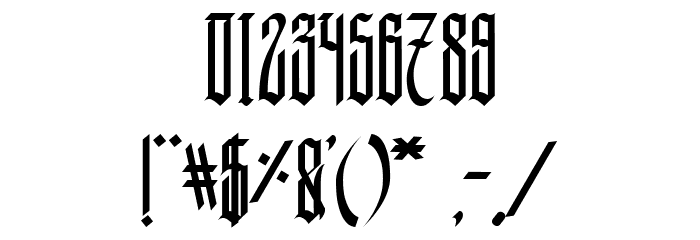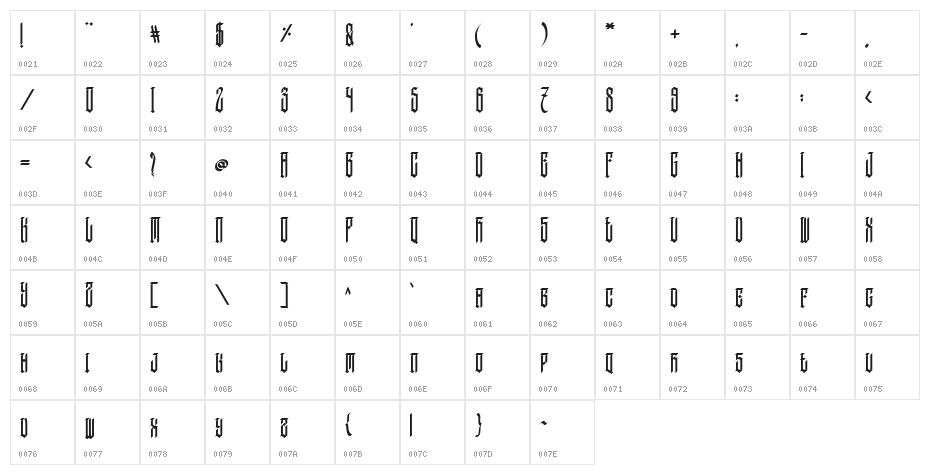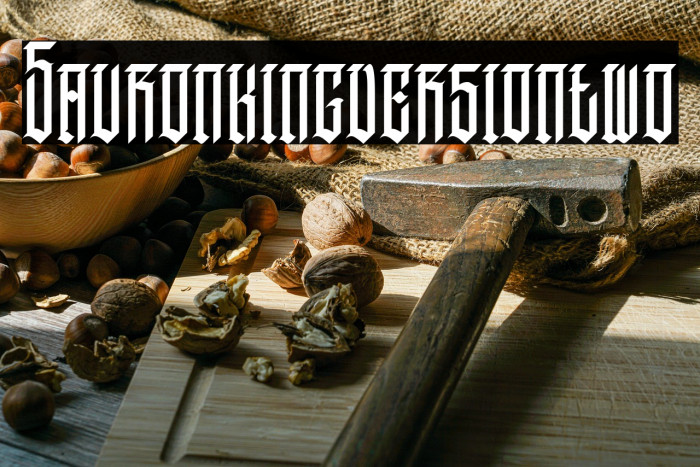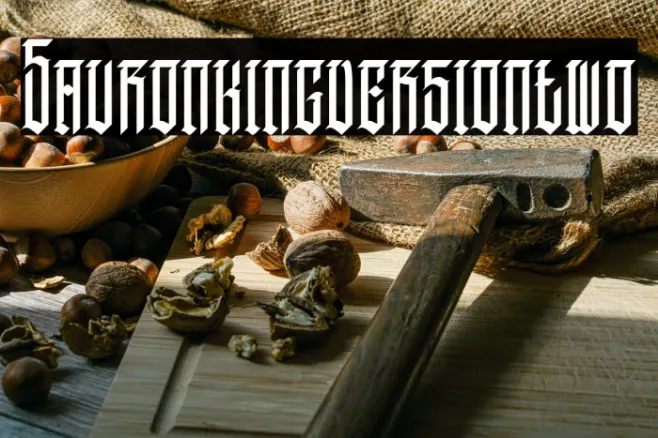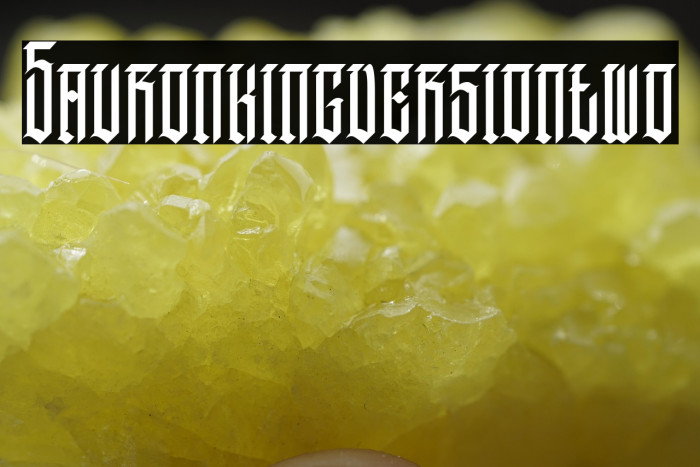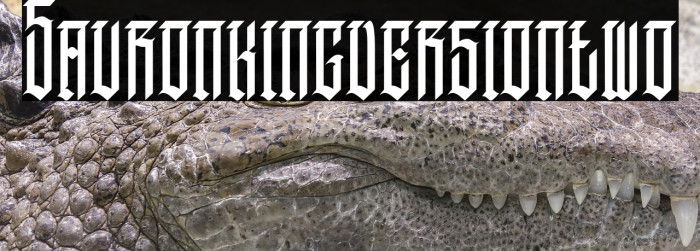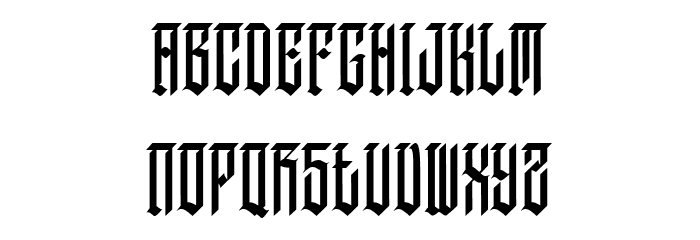
Sauronkingversiontwo Font
Sauronkingversiontwo Description
This font features a bold, angular design reminiscent of traditional Blackletter styles. The characters are tall and narrow, with sharp edges and pointed serifs that give it a dramatic and authoritative appearance. The uppercase and lowercase letters maintain a consistent style, with the uppercase being slightly more elaborate. Numbers and special characters are designed to match the overall aesthetic, ensuring a cohesive look across all text. The font's intricate details and strong presence make it ideal for projects that require a historical or gothic touch.
| Overall Style | Gothic |
| Proposed Projects | Suitable for use in branding, posters, book covers, and any design requiring a gothic or medieval theme. |